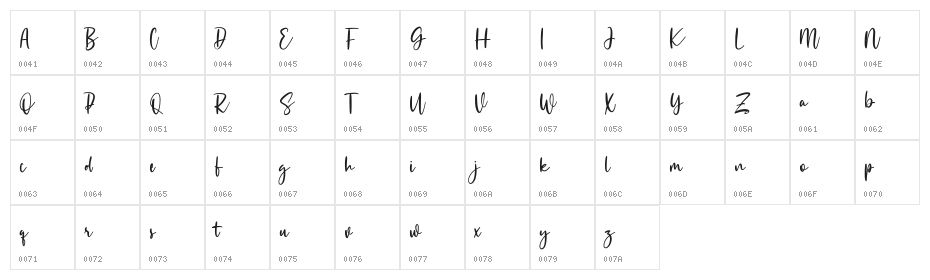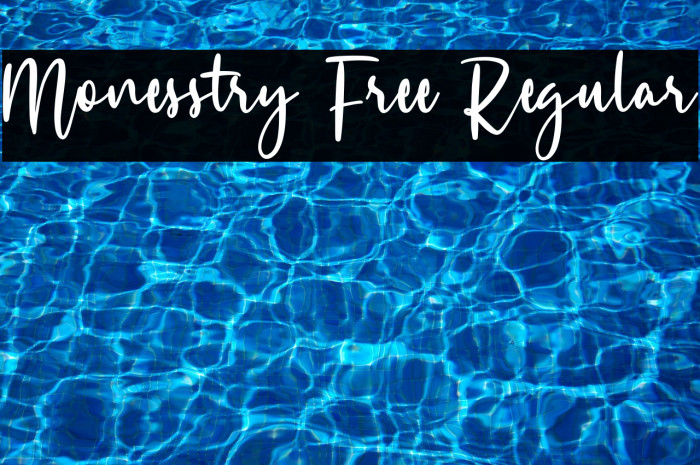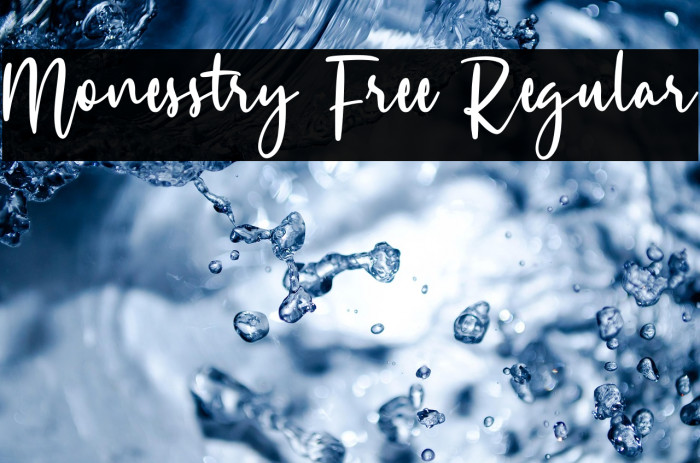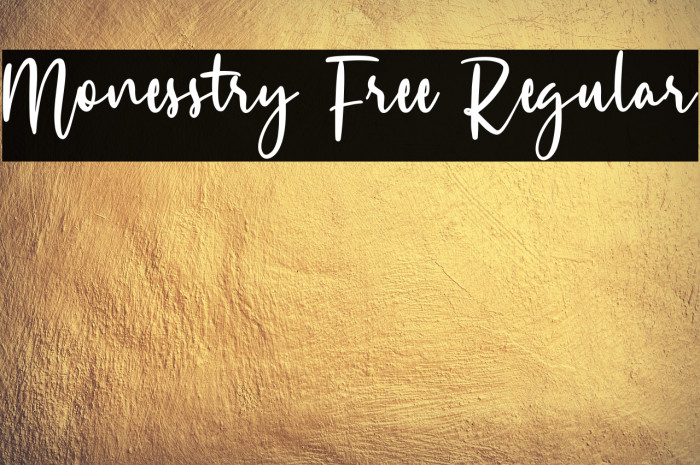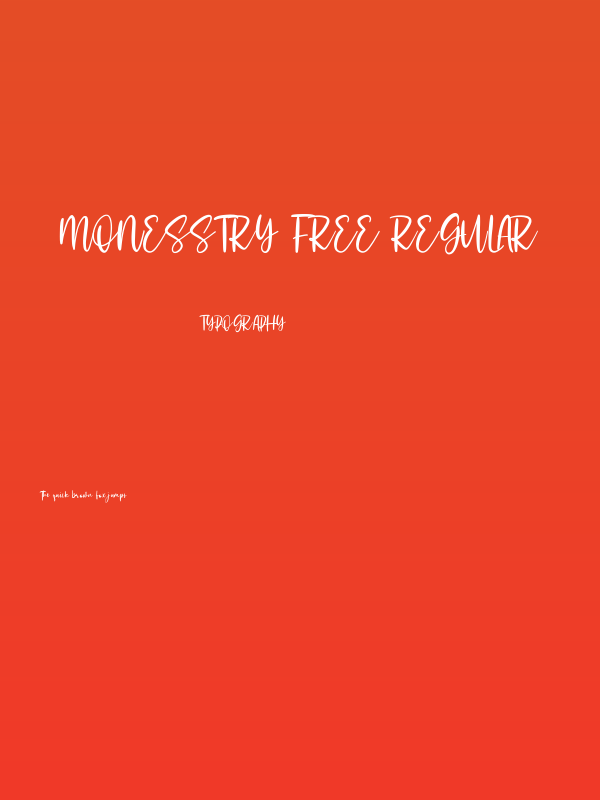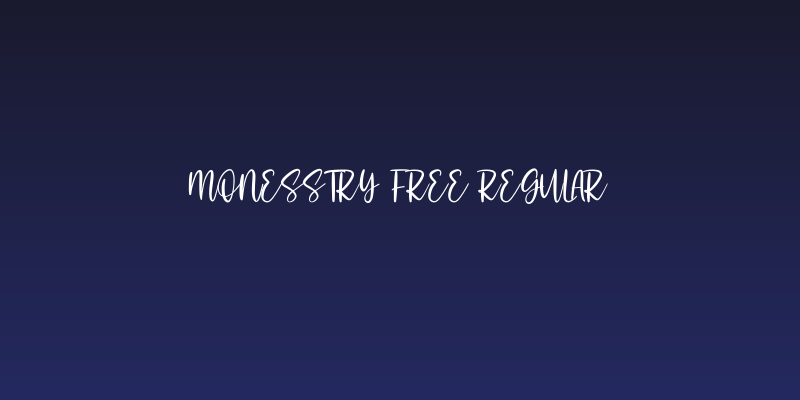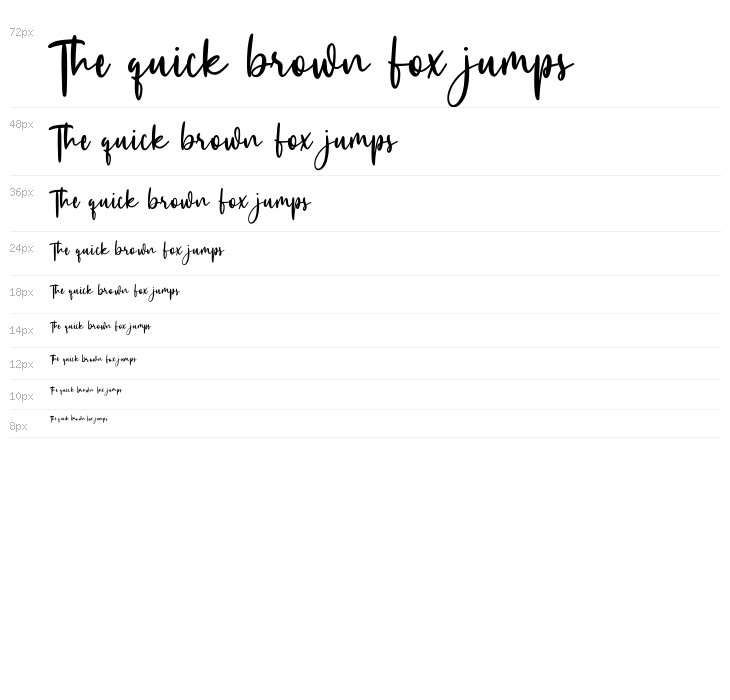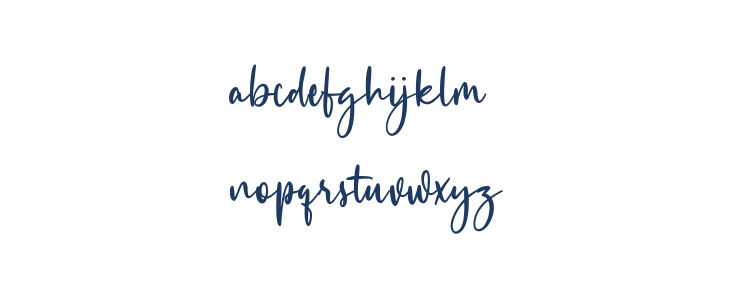
Monesstry Free Regular Font
Monesstry Free Regular Description
This font features an elegant and flowing script style, characterized by its smooth, cursive letterforms that convey a sense of sophistication and grace. The uppercase letters are bold and slightly elongated, with a playful yet refined appearance. The lowercase letters maintain a consistent flow, with gentle curves and loops that enhance readability while adding a touch of whimsy. The overall design is balanced, with a harmonious blend of thick and thin strokes that create a dynamic visual contrast. This font is ideal for projects that require a personal and artistic touch, such as invitations, greeting cards, and branding materials.